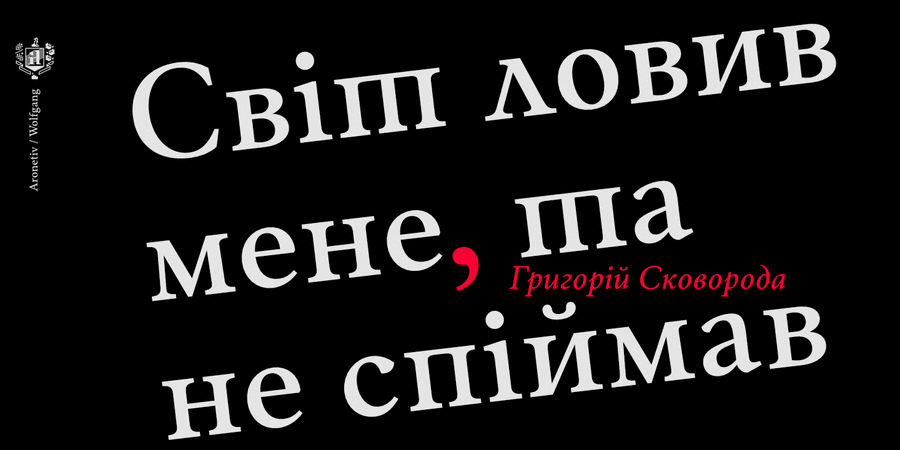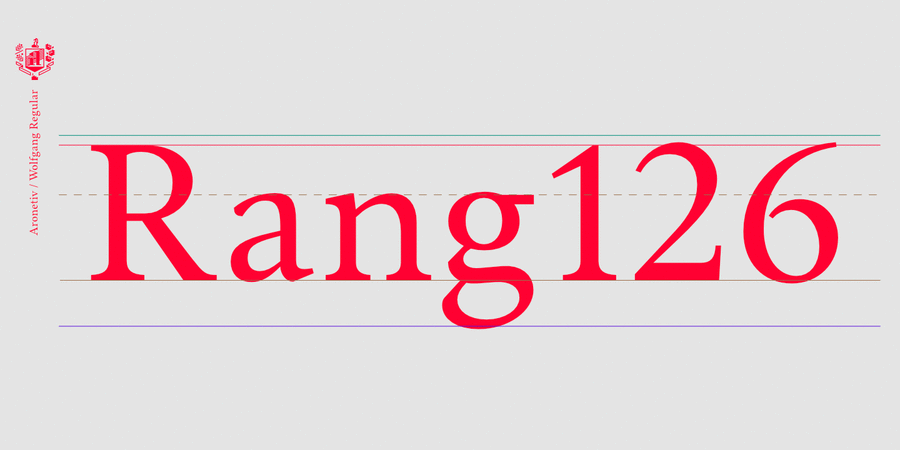
Wolfgang (8 fonts)
The Wolfgang typeface is inspired by classic Garalde such as Garamond, Jenson, and Griffo. It features pronounced serifs and slightly sharp forms, which lend the typeface a contemporary character. Its texture is even and silvery, typical for this style.
This font family is ideal for refined and ceremonial projects, particularly in the literary and art domain. Wolfgang includes a well-designed italic and maintains excellent readability even at small sizes. The typeface consists of 6 static fontstyles and 2 variable fonts. It supports Cyrillic and Western European languages, includes oldstyle lowercase numerals, alternate forms for the letters “д”, “ж”, “л”, “т”, and a contextual ligature for “її”. The typeface also contains over 1,000 kerning pairs. Wolfgang was designed by Oleksii Popovtsev in 2021-2025. The quick brown fox jumps over the lazy dog
comme il faut, noble, conservative, traditional, classic, pretentious, artistic, silver, educated, masterful, architectural, aristocratic, elite, high-quality, historical, humanitarian, dynamic, accurate, expensive, clever, sacral, polite, elegant, beautiful, orderly, regardful, diligent, tactful, exemplary, refined, strong, convincing, authoritative, important, self-assured, stable, serious, robust, cinematic
library, art, museum, literature, aesthetics, prose, poetry, music, architecture, heraldry, tea, wine, education, silver, comme il faut, history, castle, concert, Bible, finance, landscape, philosophy, symphony, flowers, beauty, painting, cards, monument, memorial, bank note, coin, securities, dinner, alcohol, cognac, trophy, reward, cinema, sunset, flag Typeface exhibits stylistic traits: